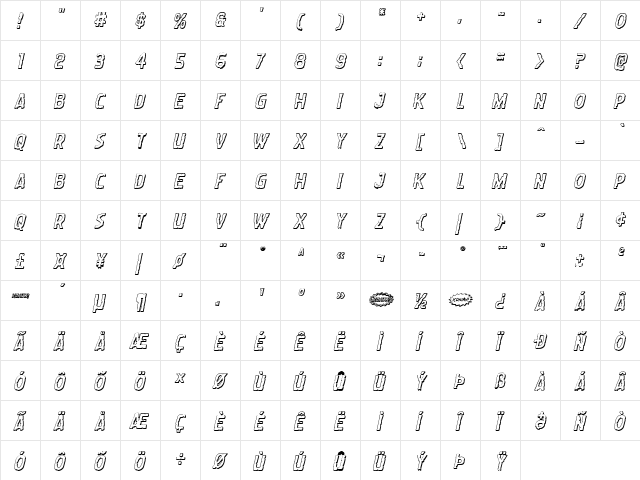
Worm Cuisine 3D Italic Italic
Design Context for Worm Cuisine 3D Italic Typeface
Worm Cuisine 3D Italic is a composed and adaptable typeface that performs quietly and consistently across a wide range of design contexts. Its italic angle brings a sense of urgency and motion to the letterforms.
Pro Tip: Use Worm Cuisine 3D Italic for emphasis, pull quotes, and subheadings where its slanted energy can add rhythm to the layout.